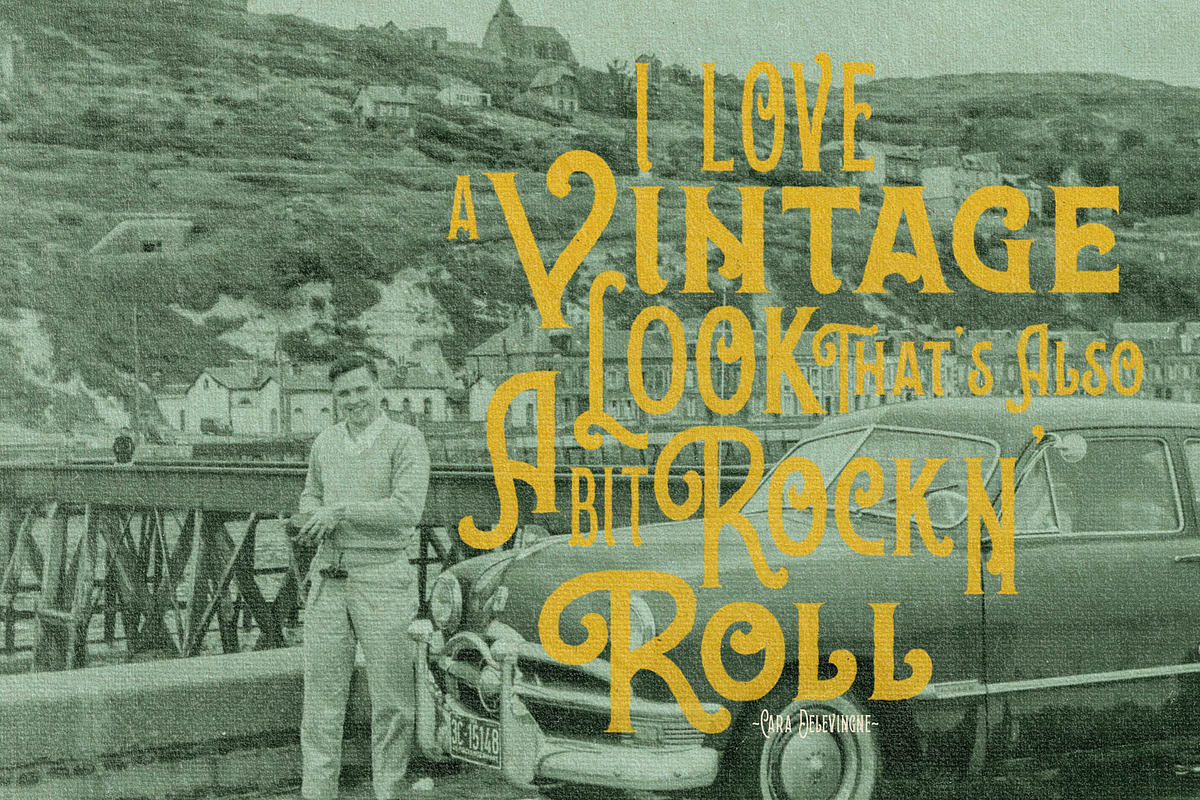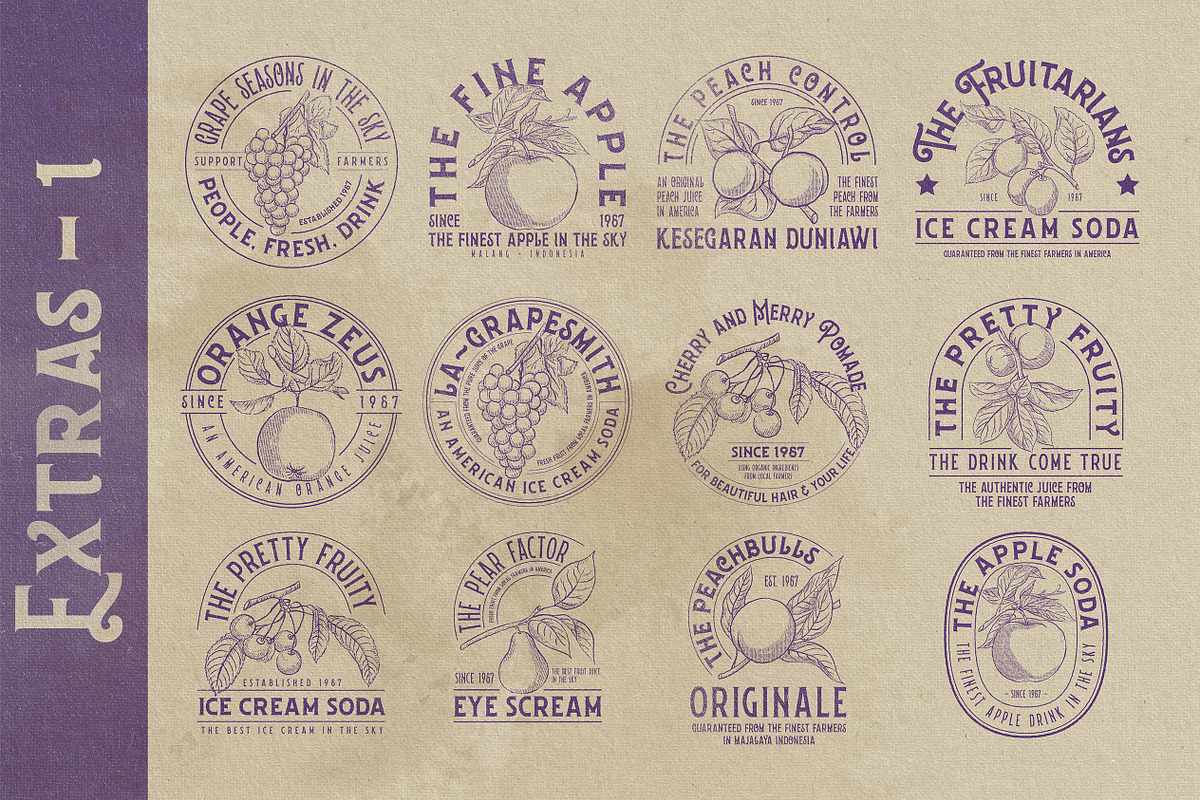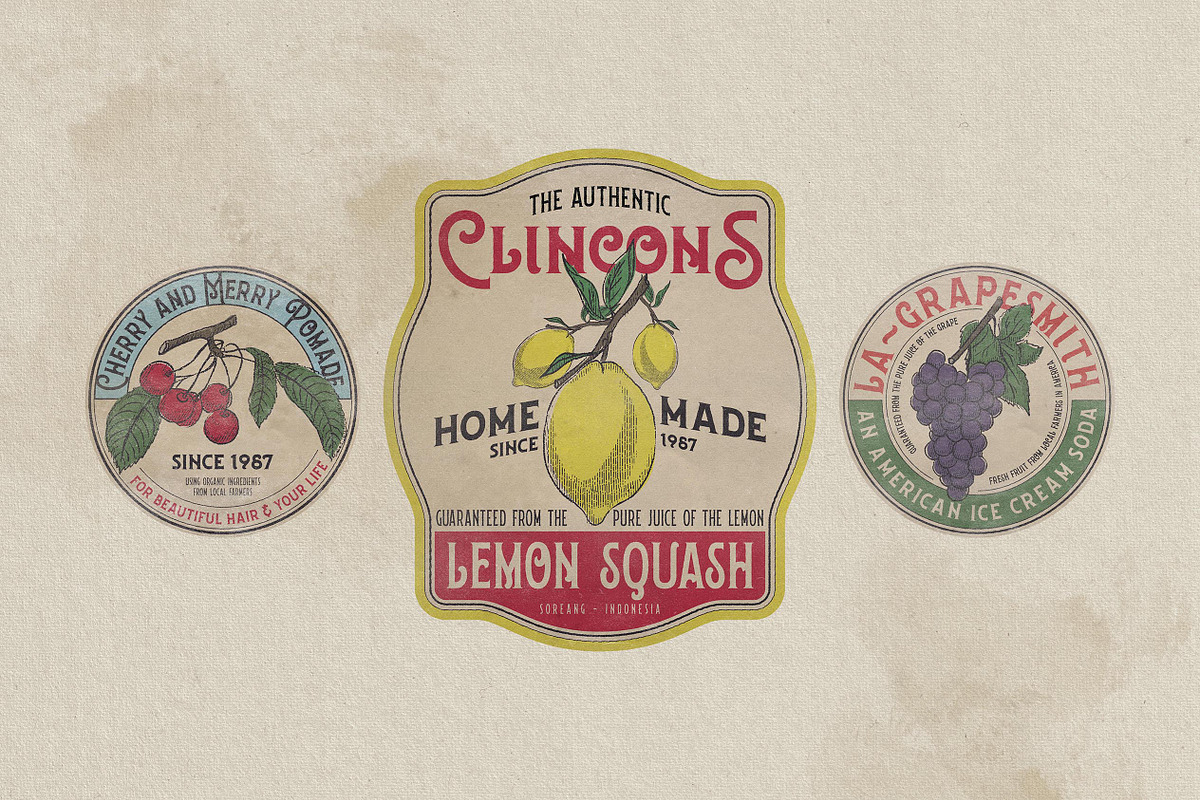
Aspernatur Vintage Family
Hello. We are proud to present to you all the Aspernatur Vintage Family Typeface. Aspernatur is a vintage display font, inspired by a book that was made around the late 1800s. The design is very simple, but still presents an ornamental element on each character of this font.
Aspernatur is a font family consisting of 10 styles:
- WUB-Aspernatur Condensed
- WUB-Aspernatur Semi Condensed
- WUB-Aspernatur Normal
- WUB-Aspernatur Regular
- WUB-Aspernatur Medium
- WUB-Aspernatur for Bold
- WUB-Aspernatur Semi Bold
- WUB-Aspernatur Demi Bold
- WUB-Aspernatur Ultra Bold
- WUB-Aspernatur Extra Bold
With this family, you have many font choices for your design needs. You can combine one style with another style. This font has the Uppercase and Lowercase Alternative features. Which you can combine both also in a series of words or sentences.